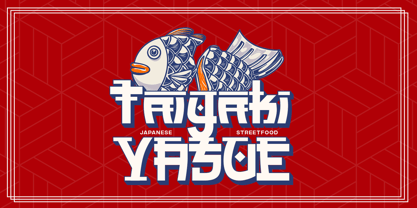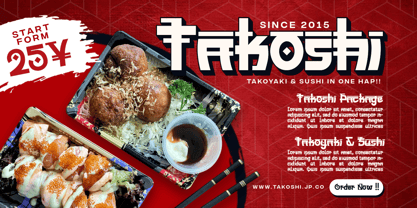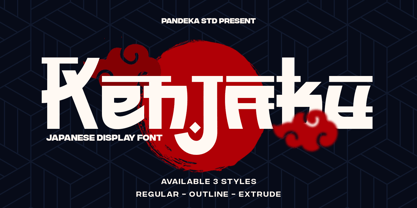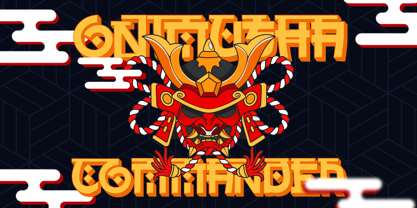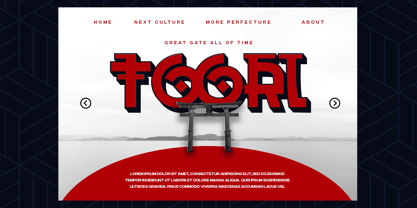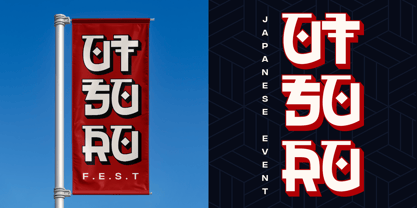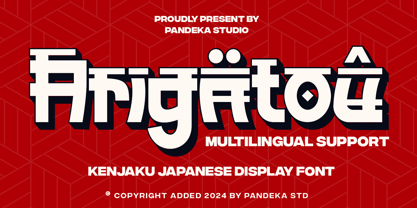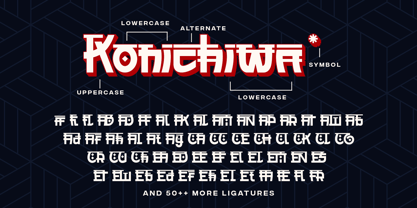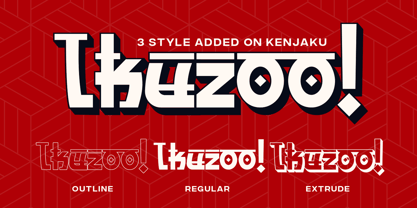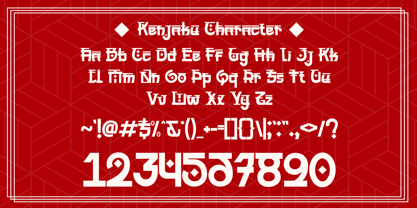
Kenjaku
by Pandeka Studio
The Kenjaku Font Family was designed by Sagara Nararya and published by Pandeka Studio. Kenjaku contains 3 styles and family package options. More about this family
Konnichiwa and Annyeonghaseyo!
Bring your designs to life with Kenjaku, a display font inspired by modern Japanese and Korean lettering. Featuring 3 styles – Regular, Extrude, and Outline, along with 50+ unique ligatures and alternates, Kenjaku allows endless creativity to make your designs stand out. Its bold yet elegant design blends tradition with a contemporary touch, making it perfect for logotypes, posters, branding, banners, and more.
• 3 Styles: Regular, Extrude, and Outline
• 50+ unique Ligatures and Alternates
• Full Character Set: Uppercase, lowercase, numbers, symbols, and punctuation
Designers: Sagara Nararya
Foundry: Pandeka Studio